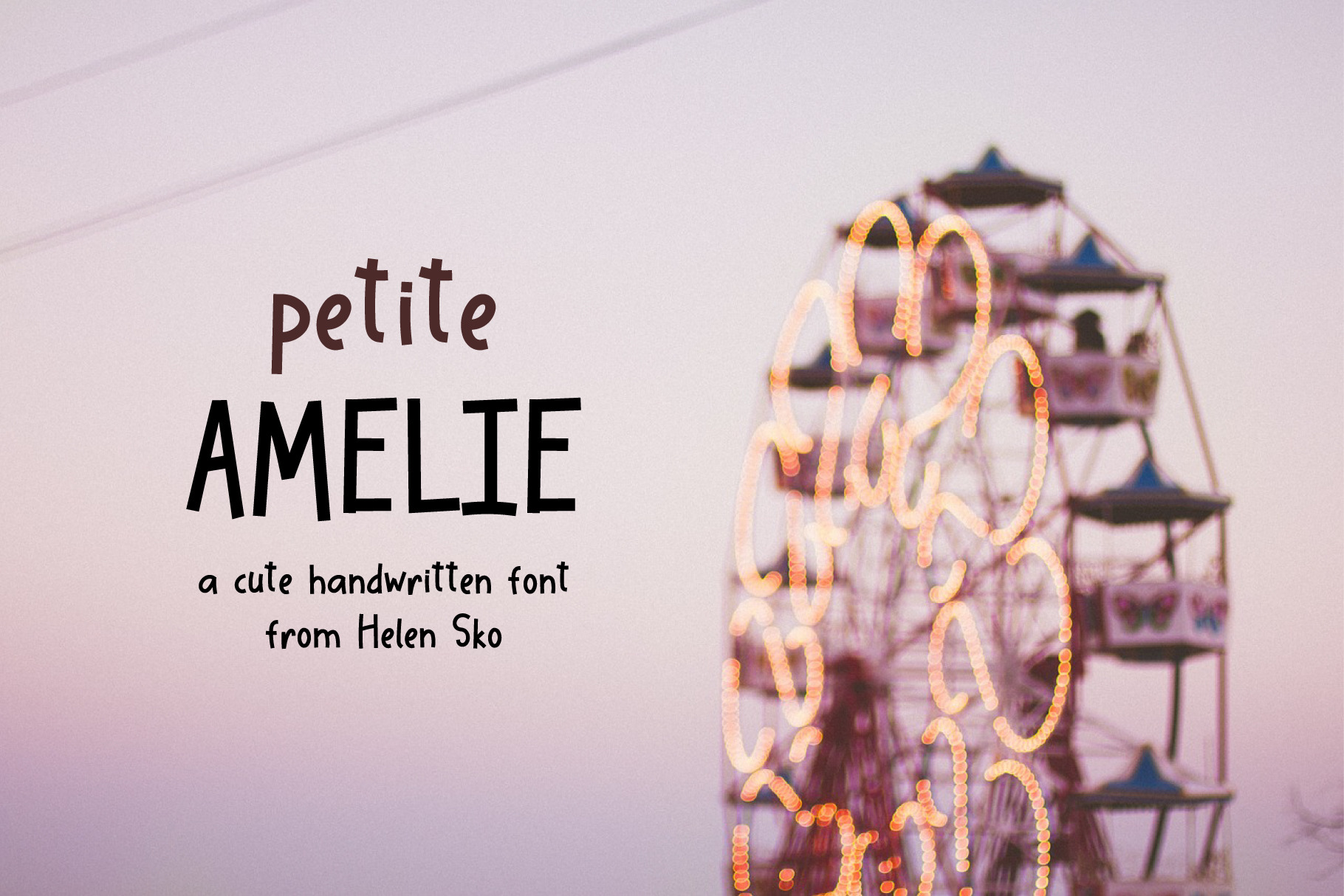
Petite Amelie, handwritten font
Petite Amelie is a sans serif font. This font will be perfect for books, greeting cards, handwritten quotes, posters, branding, product packaging, social media etc.